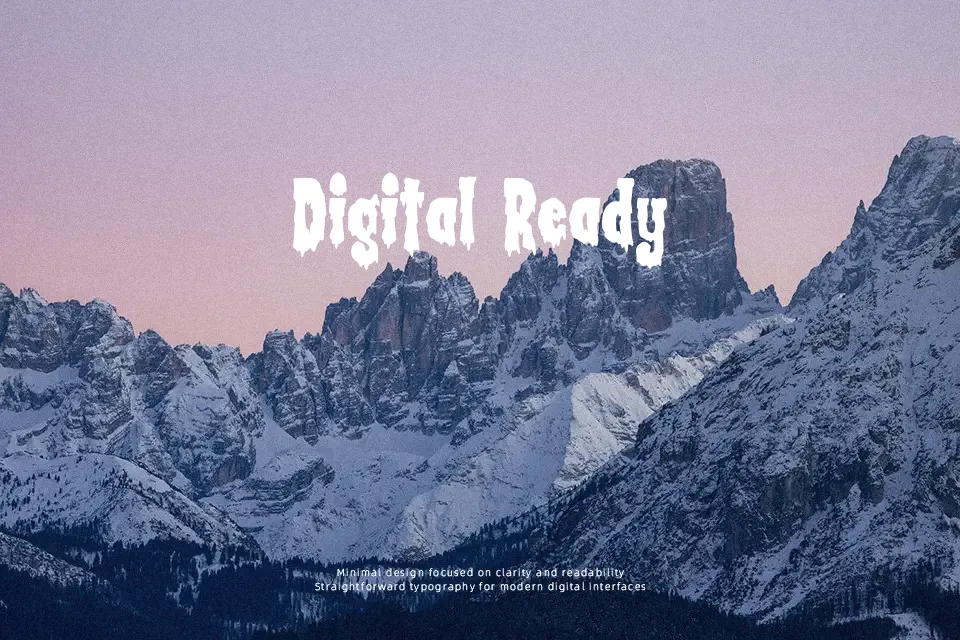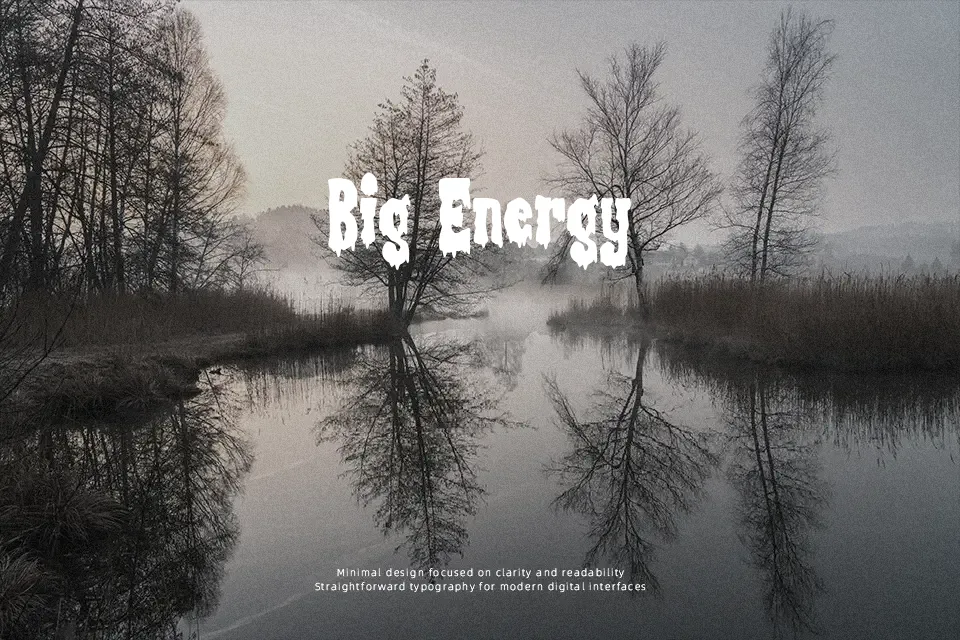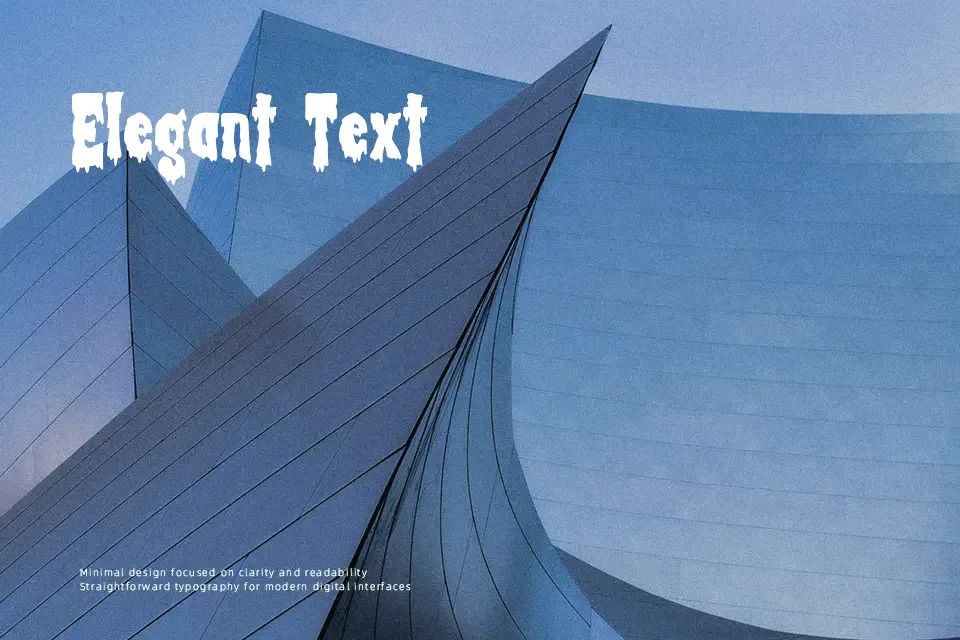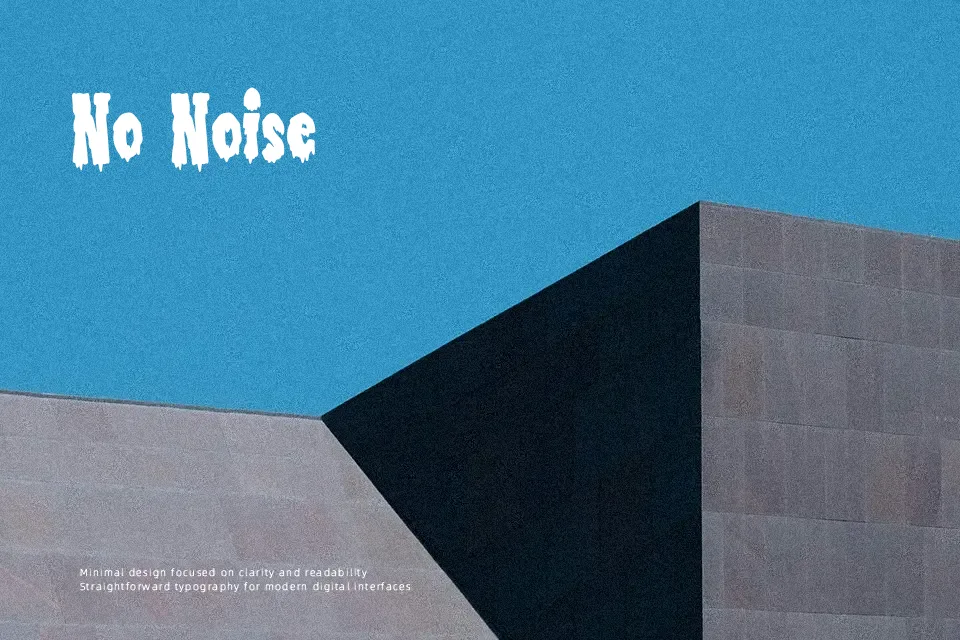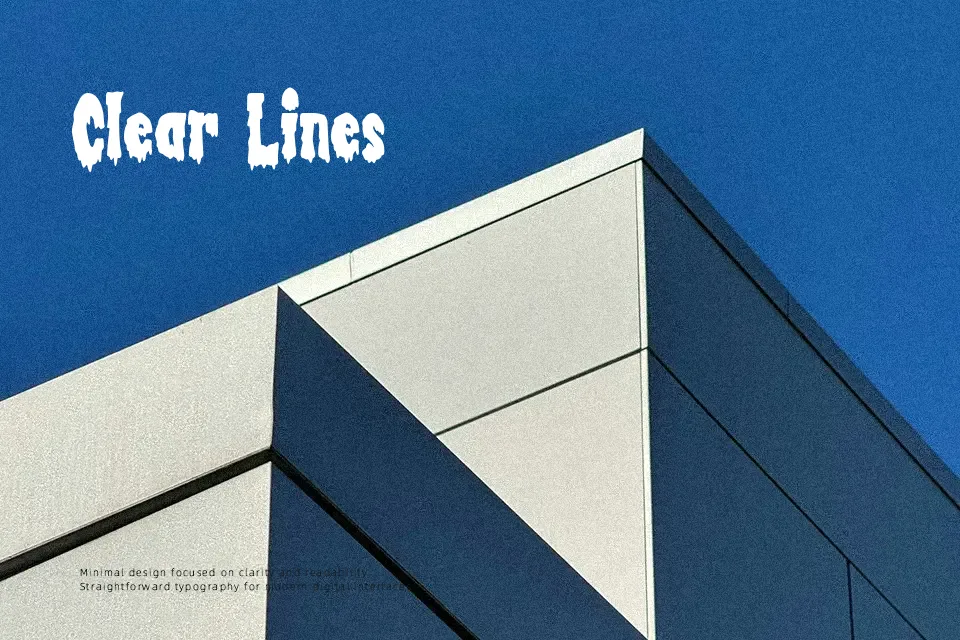
The Comic Horror Font
The Comic Horror Font features jagged, hand-drawn display letterforms characterized by uneven contour edges, heavy stroke weights, and asymmetric terminal details. Tight proportional spacing and dense forms lend each character an aggressive visual punch across brief headline settings, while preserving essential letter recognition at substantial scales. However, the heavy textural irregularities and congested interior counters severely degrade legibility when applied to continuous reading environments. For Halloween flyers, horror-themed merchandise, or gaming title cards, this typeface establishes an unsettling, tactile aesthetic without requiring excessive supplementary illustration.
Best For: Halloween event flyers, horror gaming title cards, graphic apparel prints, comic book cover headlines
Not Ideal For: continuous reading environments, corporate documentation, mobile interface copy, small caption labels
Perfect for branding, gaming, and halloween, with a bold and comic style.